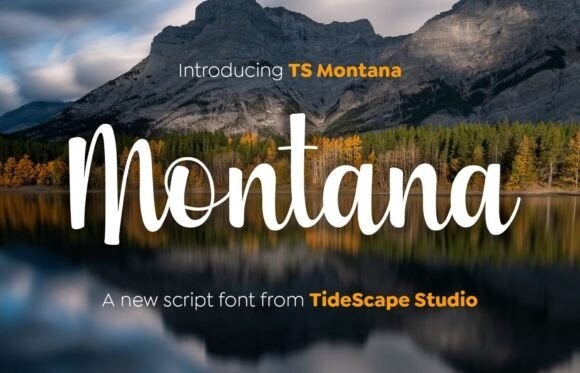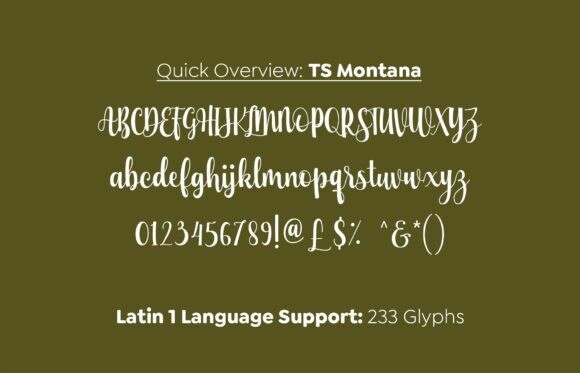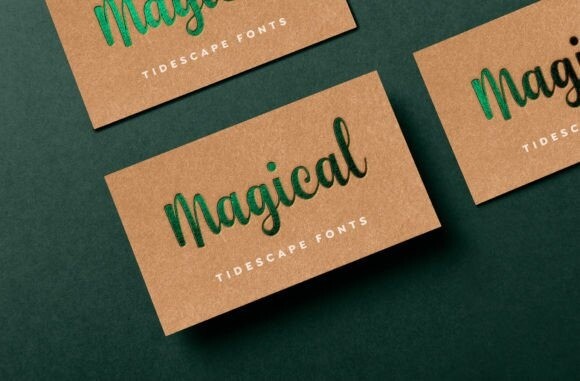
Ts Montana Font
TS Montana is a charming and versatile choice for any design project. Its flowing lines and elegant curves evoke a sense of whimsy and romance, making it perfect for wedding invitations, branding, and more.
Whether you’re designing a romantic wedding invitation or a playful logo, TS Montana script font adds a touch of sophistication and charm to your work.